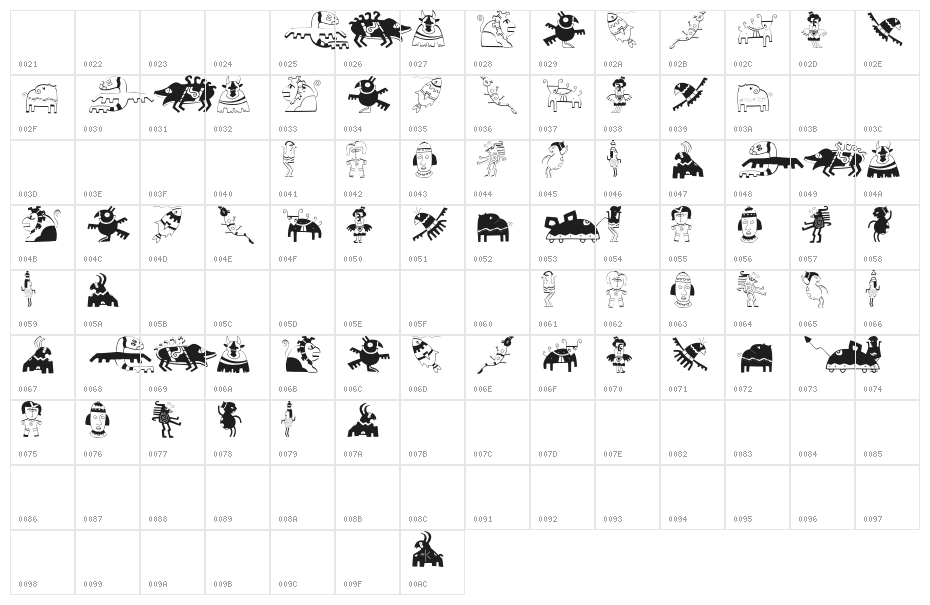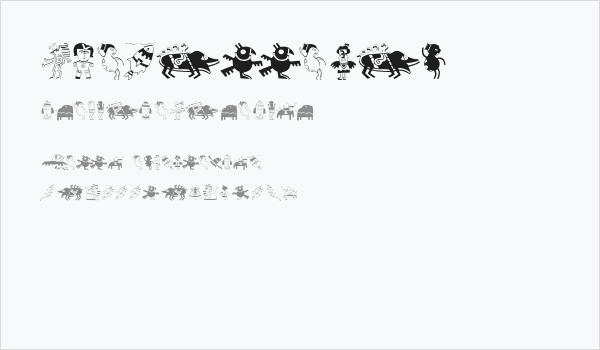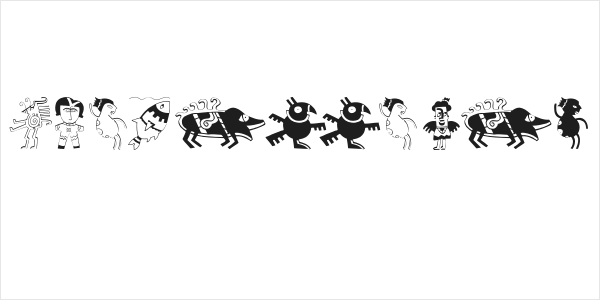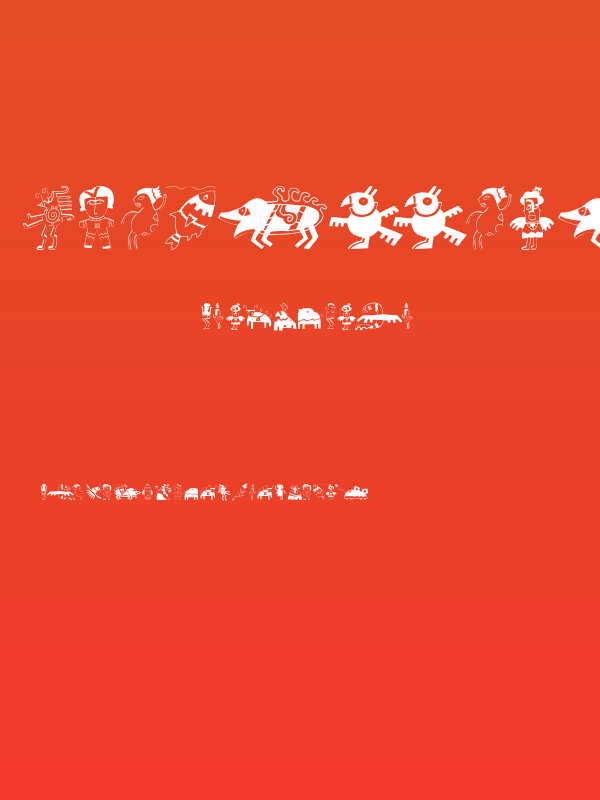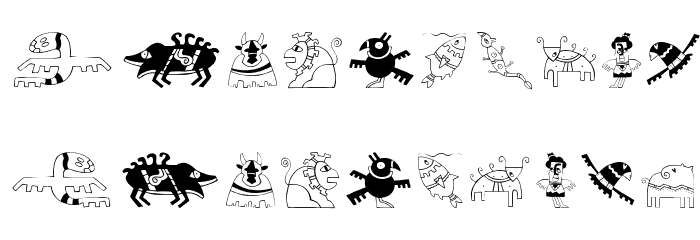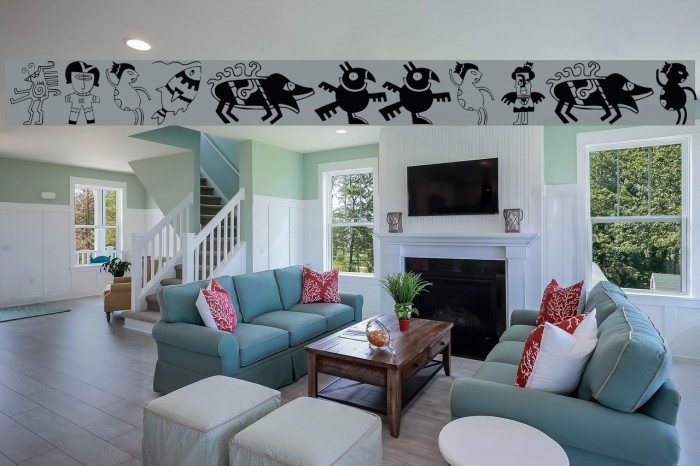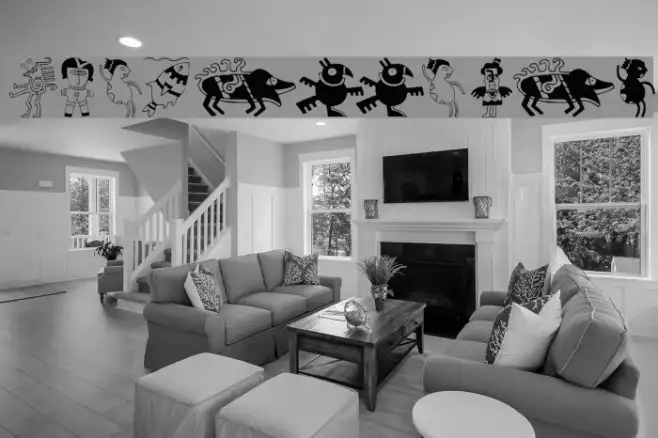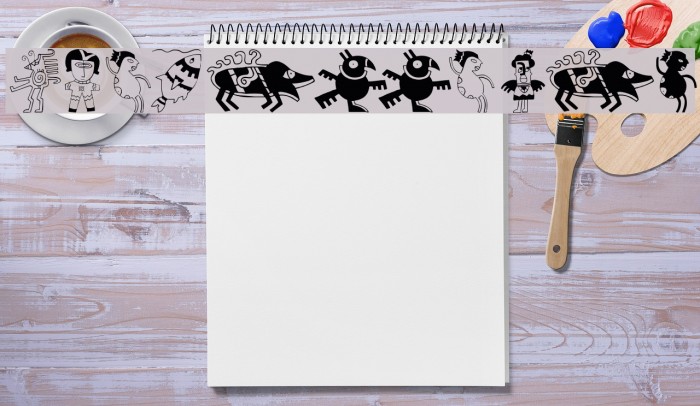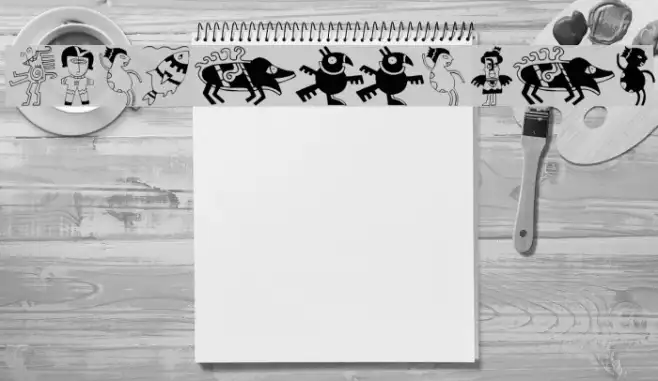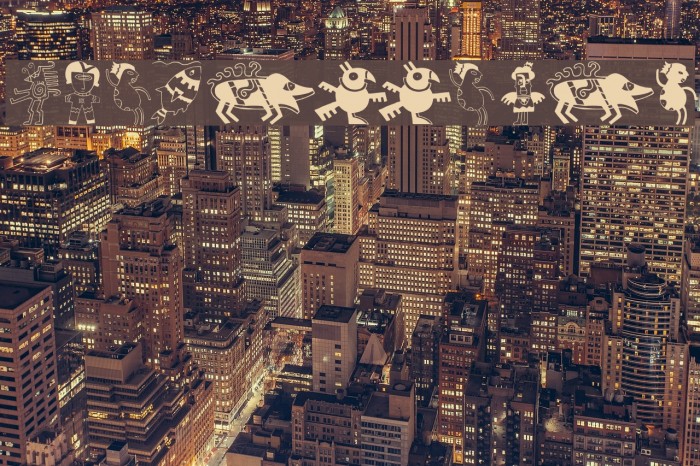
DueMillePix Font
DueMillePix Description
A highly decorative and illustrative font composed of whimsical, abstract, and tribal-inspired pictograms representing each character, blending human, animal, and machine-like forms in a playful, hand-drawn style.
| Overall Style | Decorative, Playful, Tribal, Artistic |
| Use Case | Logos, Posters, Art projects, Decorative headlines |
| Proposed Projects | Children’s books, posters, creative branding, album covers, art installations, educational materials. |